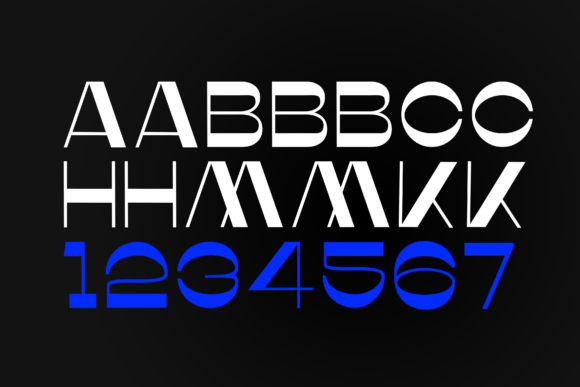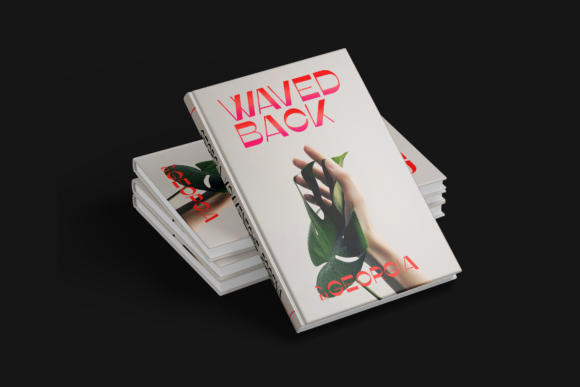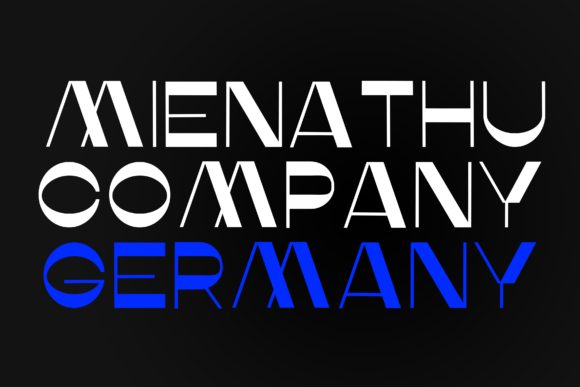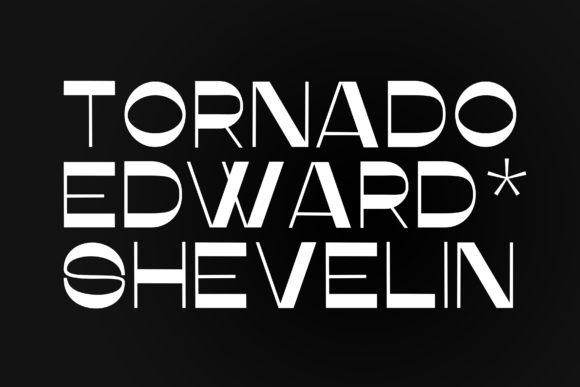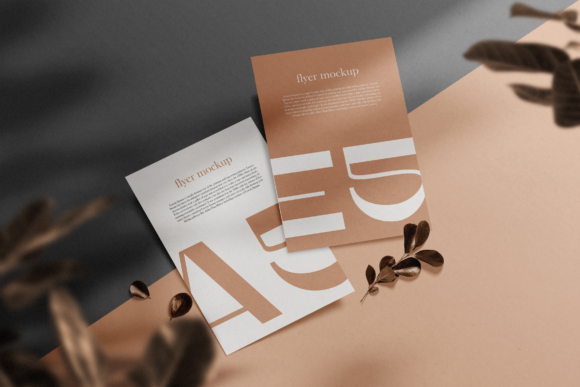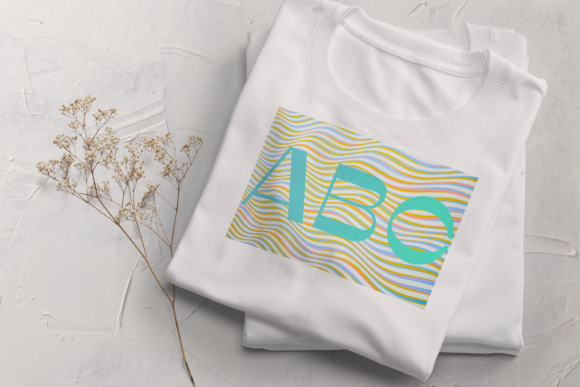
Designing with Distinction: The Brewer Display Font
There’s that moment when a project comes together, and you know you’ve nailed it. The colors, the layout, the typography – every element harmonizes to create something truly special. For many designers, this magic moment often starts with the perfect font. Enter Brewer Display Font, a cool, clean, and retro-styled display font that’s about to elevate your creative endeavors.
Brewer Display Font is more than just a font – it’s a tool to add distinction to your designs. Suitable for logotype, headline fonts, and corporate identities, this versatile font is perfect for the apparel industry, posters, music, movies, and more. With Brewer Display Font, you can create captivating visuals that leave a lasting impression on your audience. Whether you’re working on a magazine, book, comic, or cartoon, this font is sure to bring your vision to life.
- Unique Characteristics: Designed specifically for digital use, with optimized spacing and letterforms for clear readability
- Font Style: Display font with a modern, clean aesthetic, suitable for headings and titles
Brewer Display Font Review
I recently had the chance to work with Brewer Display Font, and overall, I’m impressed with its unique charm. Here’s a breakdown of my experience.
- Highly legible, even at larger font sizes, making it perfect for headings and titles.
- Stunning letterforms that add a touch of sophistication to any design project.
- Supports a wide range of languages, making it a great option for international projects.
- Weight variation could be improved for a more cohesive look, especially with the thin and bold weights.
- The font might be a bit too ornate for simple text-based projects, which could make it overwhelming.
- The font’s spacing and kerning could be adjusted for better readability, particularly in certain languages.
Despite some limitations, Brewer Display Font has a unique character that makes it stand out. Its versatility and legibility make it a solid choice for designers looking to add some flair to their projects. With a bit of tweaking and adjustment, it can truly shine.
Brewer Display Font is ideal for headings, titles, and labels. To get the most out of it, use it sparingly and in combination with other fonts to create visual hierarchy. You can also experiment with different font sizes and colors to create a unique look.
Comparison to Brewer Display Font: While Brewer Display Font has a more rustic and vintage feel, Playfair Display is more refined and elegant. Playfair Display is better suited for high-end brands and luxury products, whereas Brewer Display Font is more versatile and can be used for a wider range of applications.
Comparison to Brewer Display Font: Montserrat is a more modern and minimalist alternative to Brewer Display Font. While Brewer Display Font has a more ornate and vintage feel, Montserrat is sleek and contemporary. Montserrat is better suited for digital applications and modern brands, whereas Brewer Display Font is more suitable for print materials and traditional brands.